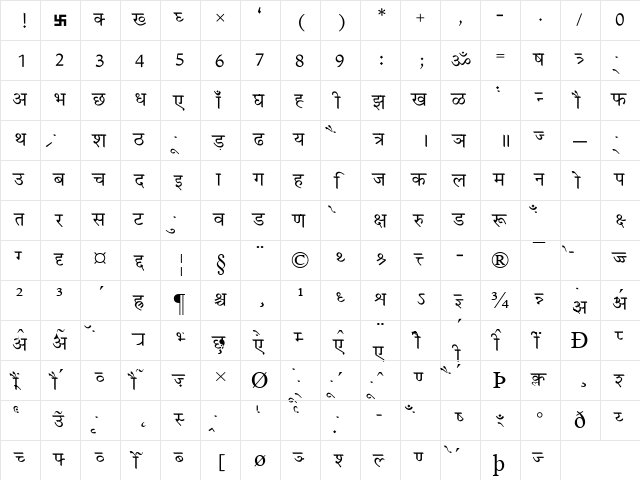
ArivNdr POMt Regular
Design Context for ArivNdr POMt Typeface
ArivNdr POMt is a composed and adaptable typeface that performs quietly and consistently across a wide range of design contexts.